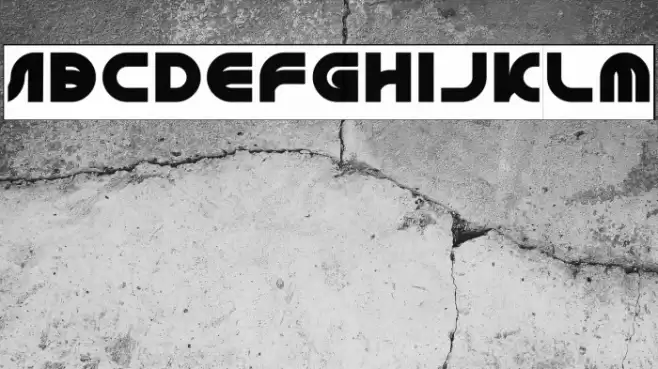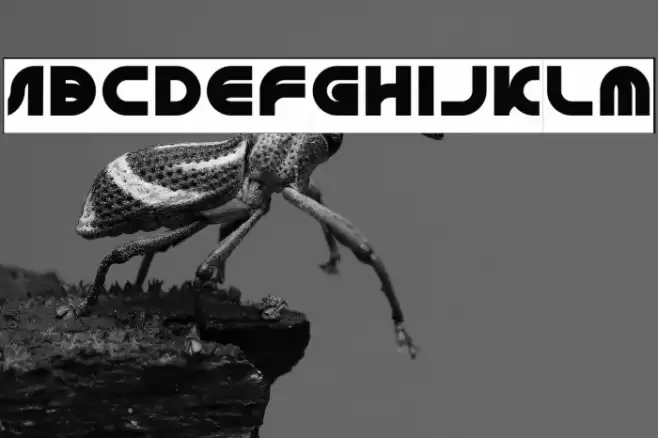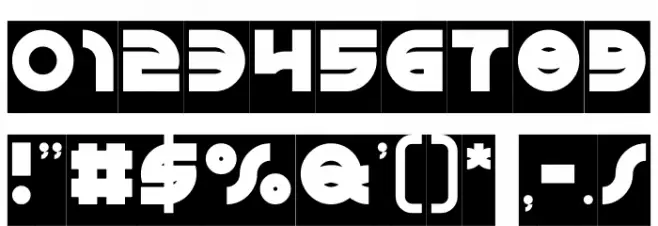
GRAPHIC DESIGN-Inverse Font
GRAPHIC DESIGN-Inverse Description
This font features a bold and futuristic design with a strong geometric influence. The characters are constructed with thick, uniform strokes that create a sense of solidity and modernity. The uppercase and lowercase letters maintain a consistent style, with rounded edges and a distinct block-like appearance. The numerals and special characters follow the same design principles, ensuring a cohesive look across all glyphs. The font's unique style makes it stand out, with a playful yet structured aesthetic that is both eye-catching and versatile.
A bold, geometric font with a futuristic and cohesive design from Uncategorized fonts.
- Proposed Projects: Ideal for branding, posters, and digital media projects that require a modern and striking visual impact.